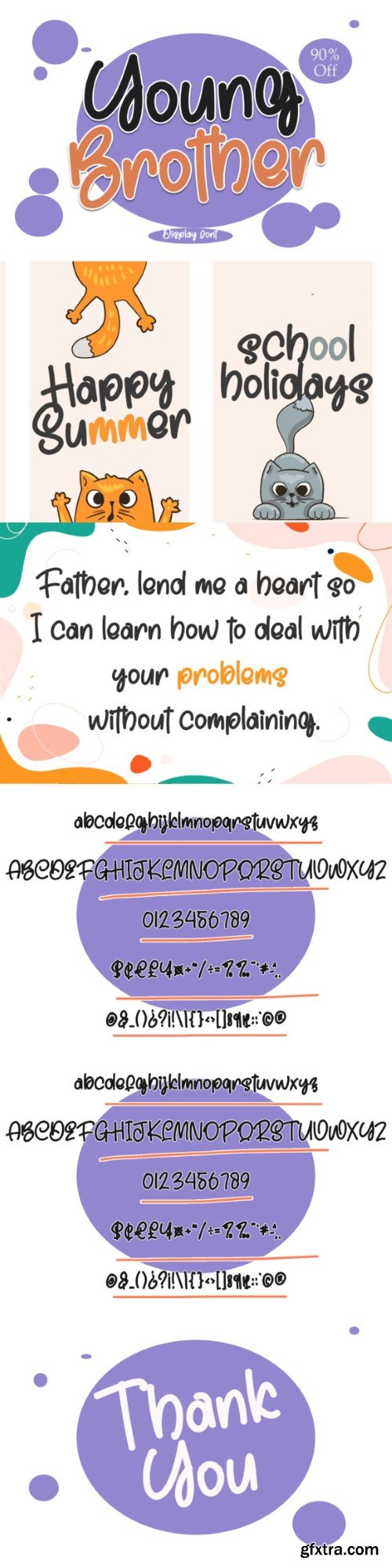
少年字体
Young Brother is a cute and casual handwritten font with an incredibly friendly feel. Whether you’re looking for fonts for Instagram or calligraphy scripts for DIY projects, this font will turn any creative idea into a true piece of art!